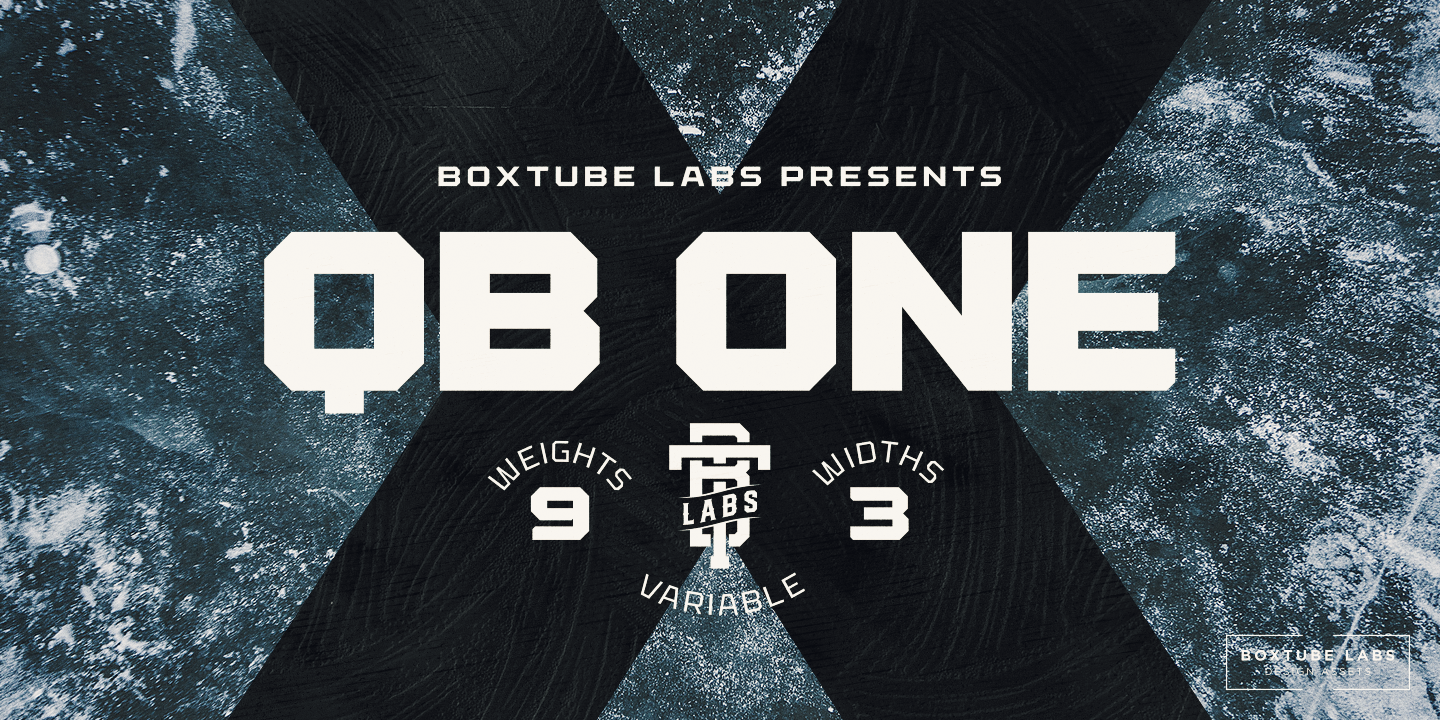
QB One Font is perfect for sports team branding, athletic equipment packaging, football league communications, sports broadcasting graphics, fitness center signage, competitive gaming interfaces, championship event materials, and high-performance training program marketing.
QB One Font is exciting because it embodies the precision and leadership qualities of elite quarterbacks with its commanding letterforms that project confidence, strategic thinking, and championship-level performance. The typeface channels the intensity of fourth-quarter comebacks and game-winning drives, creating an immediate sense of athletic excellence and competitive dominance that resonates with winners and champions.
QB One Font family includes Light, Regular, Medium, Bold, and Heavy weights, complemented by sports-inspired numerical variants and athletic decorative elements, providing designers with powerful typography tools for creating communications that celebrate peak performance and competitive achievement.
Whether you're developing a professional sports franchise identity, designing athletic performance marketing, or creating championship celebration materials, QB One Font Free Download delivers unmatched athletic authority and competitive appeal. This dynamic typeface perfectly balances sports tradition with modern performance aesthetics, ensuring your communications connect with audiences who understand the dedication required for athletic excellence. The font's strong character structure and competitive rhythm make it particularly effective for brands that emphasize winning, teamwork, and the kind of leadership that inspires championship performances. Sports marketing professionals consistently select QB One Font when projects require typography that communicates excellence, determination, and the kind of clutch performance that defines true champions, making it indispensable for athletic branding, sports equipment marketing, and any application where powerful typography can capture the intensity of competition and the unwavering commitment to victory that drives athletes to achieve greatness against all odds and inspire fans to believe in the power of teamwork and determination.